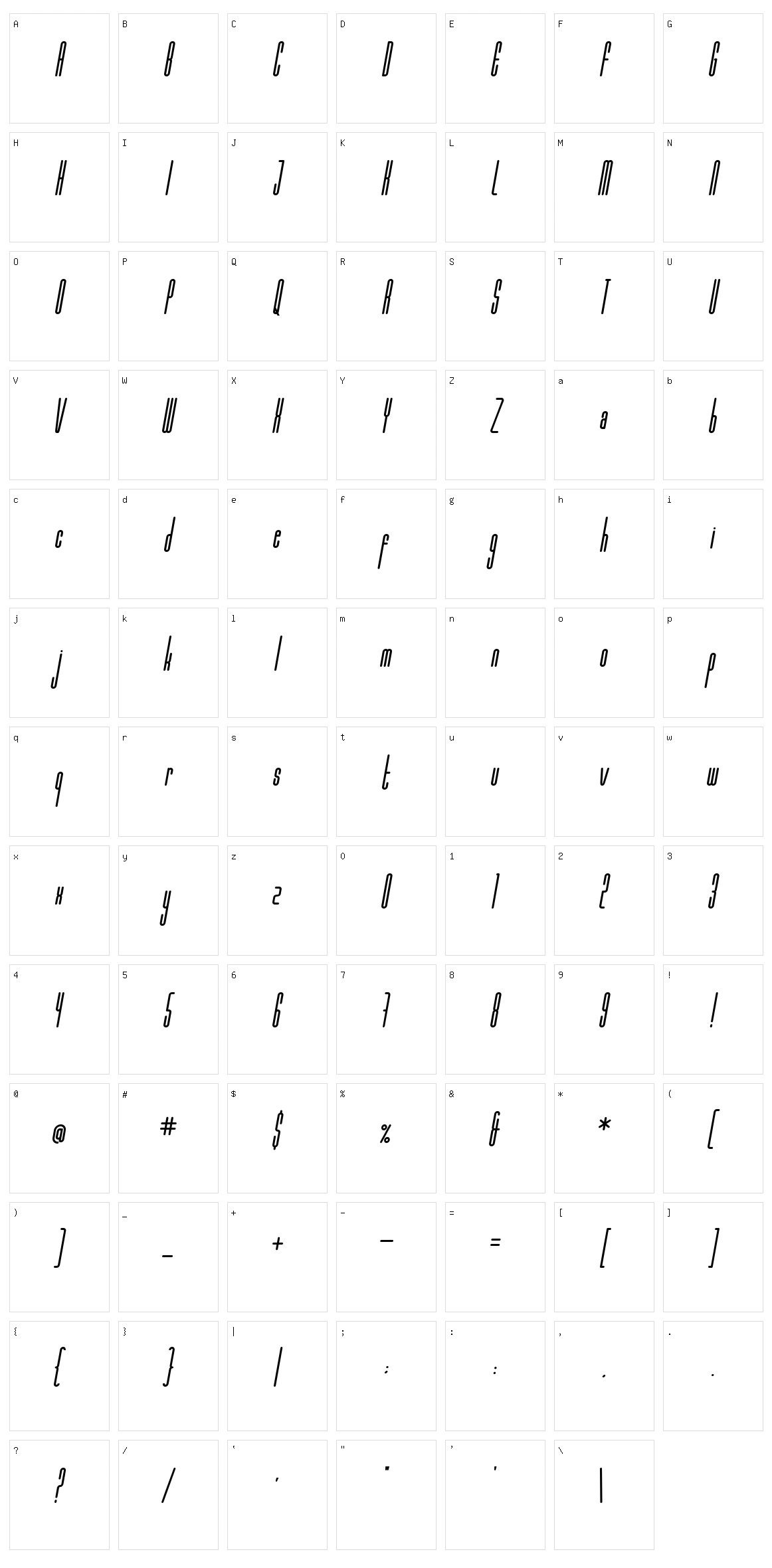
MARBELLYA CONDENSED SANS SERIF
Marbellya is Condensed Sans Serif Font with luxurious style.
Available in 3 style Regular, Bold and Outline included alternate,
ligature and multilingual support. It's perfect for headlines,
logos, quotes, packaging magazine covers, editorial design, and
many more project with suitable purpose!